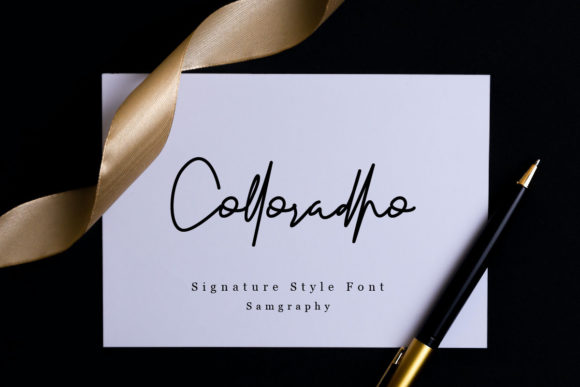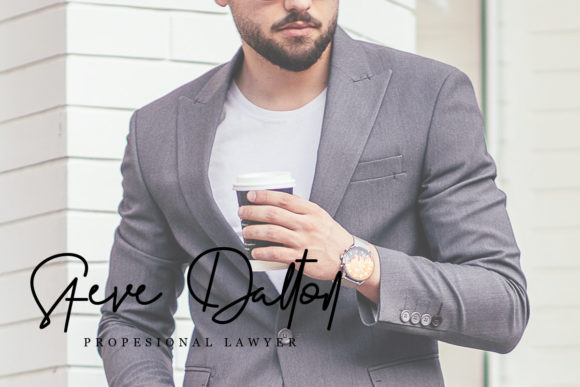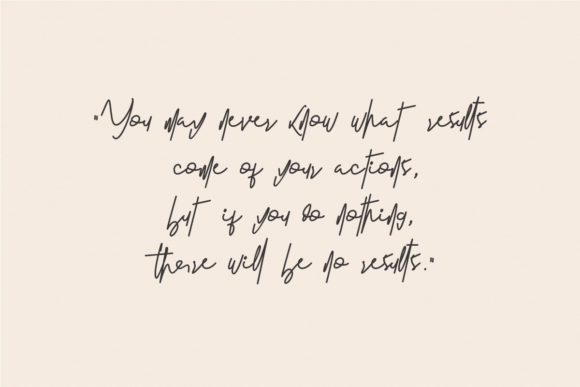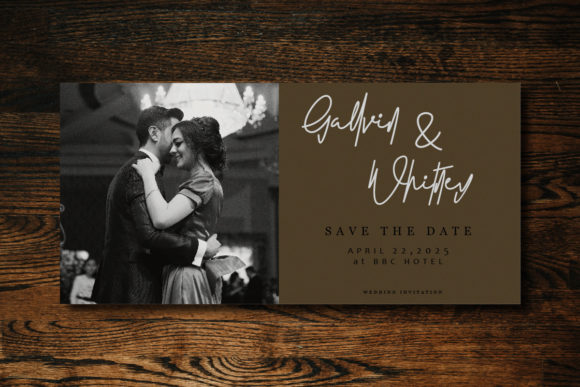
Colloradho Font
About Colloradho Font
Colloradho is a stylish and incredibly elegant script font. It looks stunning on wedding invitations, thank you cards, quotes, greeting cards, logos, business cards and every other design which needs a handwritten touch.